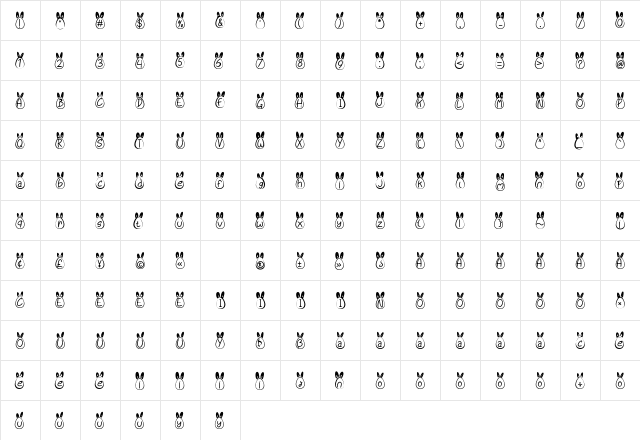
Eggy Bunny Ear Regular
Design Context for Eggy Bunny Ear Typeface
Eggy Bunny Ear is a composed and adaptable typeface that performs quietly and consistently across a wide range of design contexts.